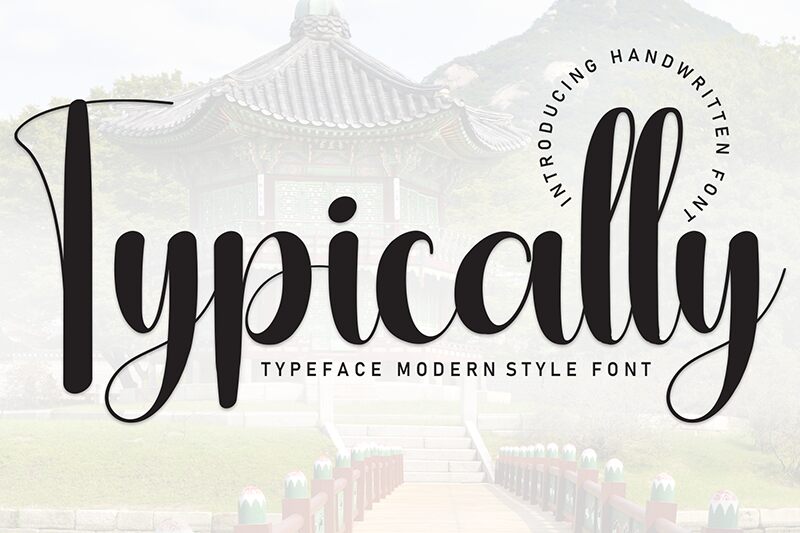
Typically
Typically font by Andi Moz is a condensed handwritten typeface that delivers unique stylish characters with decorative touches. Elegant and expressive, it’s a fantastic match for designs that require a modern personalized look. Get creative on all your projects with this high-quality font that shines in all its scripted letters.
Typically is useful for signatures, invitations, minimal branding, fashion design, wedding cards, beauty product labels, cosmetics packaging design, headers/logos/titles of blogs and websites. This free handwritten font can also be used in magazines & newspaper covers as well as social media post typography.